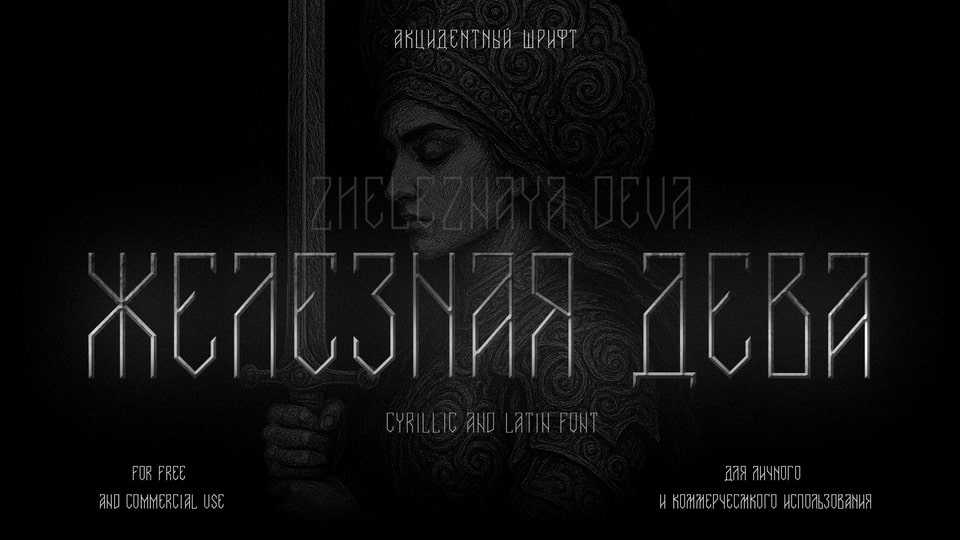
Download Deva Zheleznaya font, a striking display grotesque built on an industrial-archaic foundation, merging raw strength with refined elegance. Inspired by Old Slavic script traditions, runic writing, and Soviet Constructivism.
Designer: Sofia Orlova